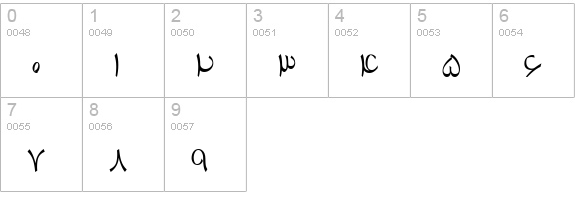
B Tabassom Font Details
B Tabassom font is a stylish and modern typeface that exudes elegance and sophistication. With its sleek lines and unique design, this font is perfect for a wide range of projects, from branding to editorial design. The clean and legible characters make it versatile and easy to read in both print and digital formats. What makes B Tabassom font even more appealing is that it is available for free download at FontsMarket.com. This means that you can easily access and use this beautiful font for your creative projects without any cost. Don't miss out on the opportunity to enhance your designs with the timeless charm of B Tabassom font. Download it today and add a touch of sophistication to your work.